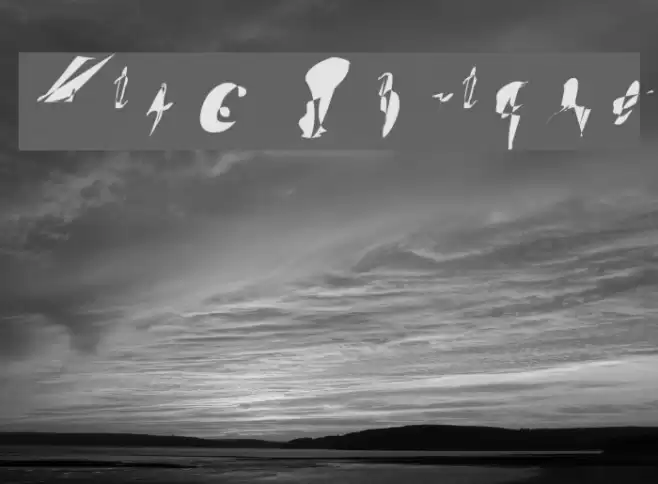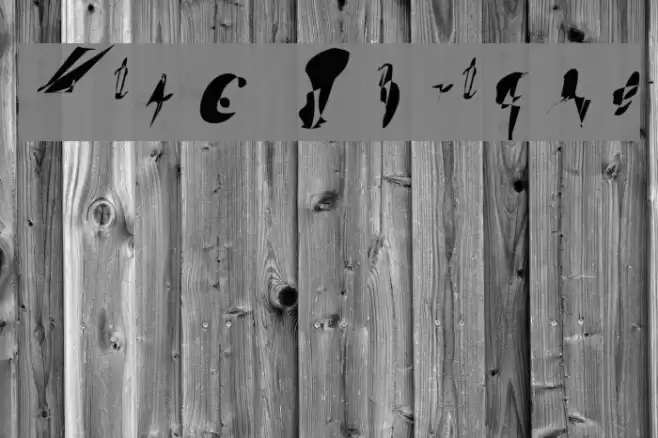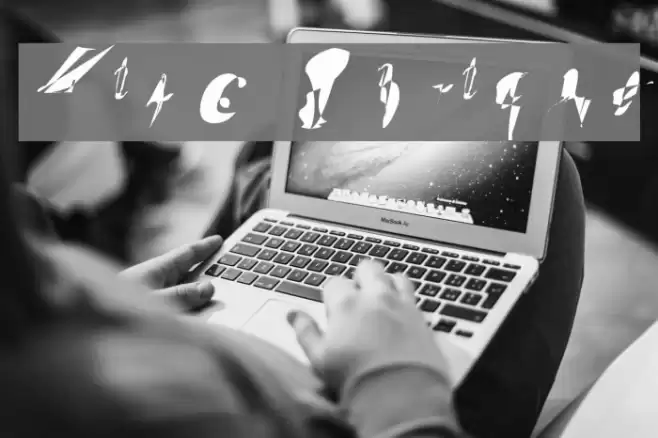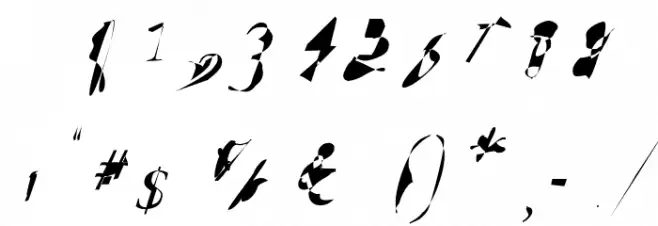
Zinc Oblique Font
Zinc Oblique Description
This font features a highly decorative and abstract style, characterized by its fragmented and distorted letterforms. Each character appears to be sliced or shattered, creating a dynamic and chaotic visual effect. The strokes are bold and angular, with sharp edges and irregular shapes that give the font a unique, avant-garde appearance. The overall design is reminiscent of a modern art piece, with a sense of movement and energy. Despite its unconventional style, the font maintains a consistent baseline and x-height, ensuring legibility. The numbers and special characters follow the same fragmented aesthetic, adding to the cohesive look of the typeface.
A bold, fragmented font with a dynamic and abstract style from Uncategorized fonts.
- Proposed Projects: Ideal for modern art posters, edgy branding, album covers, and experimental design projects.
- Overall Style: Modern, Abstract
- Use Case: Logos, Posters, Artistic projects